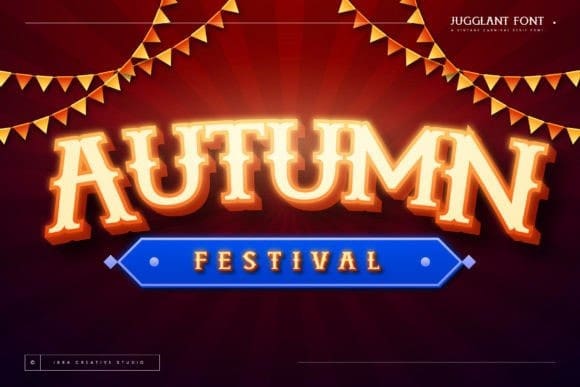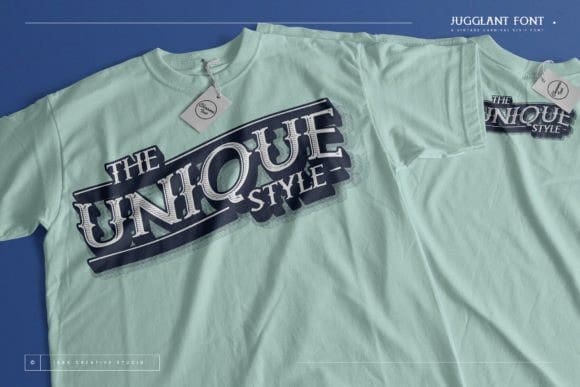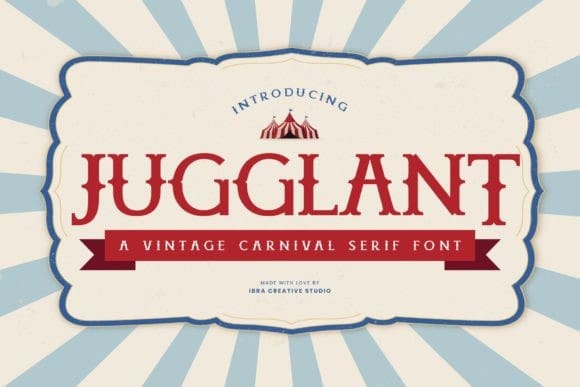
Jugglant Vintage Font
Jugglant Vintage Font a vintage carnival serif font, encapsulates the whimsical charm and nostalgic allure of classic circus aesthetics. With its playful yet meticulously crafted letterforms, Jugglant evokes a sense of joyous celebration and retro flair. The serifs dance with a delightful rhythm, reminiscent of a masterful juggler’s precision, lending a unique character to each character. Jugglant’s warm and inviting curves, coupled with its distinctive serifs, create a visual spectacle that captures the essence of the carnival spirit, making it an ideal choice for projects seeking a blend of nostalgia and spirited festivity.